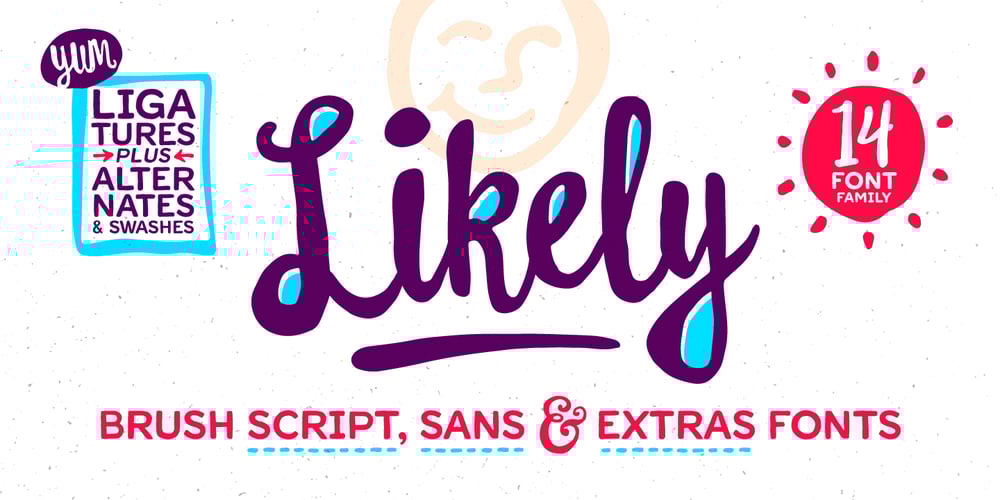
Likely Font Family was designed by Adam Ladd and published by Adam Ladd Design. Likely contains 5 styles and family package options. Likely is a joyful, brush script type family with complementary sans and extras styles. Hand drawn freely but carefully, each font is designed to work together to present a vibrant and natural package. Layer and colorize the free Counter styles to easily enhance the color palette or use the over 170 matching catchwords and shapes to make your designs even more fun!